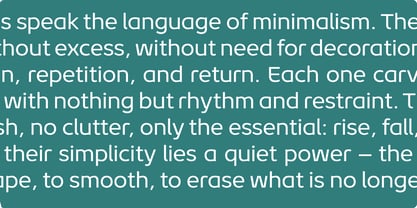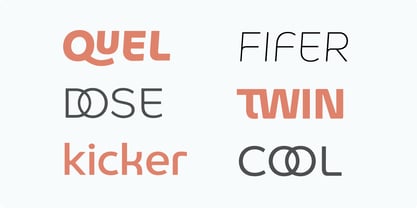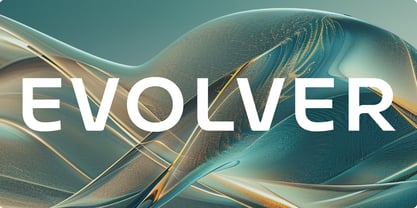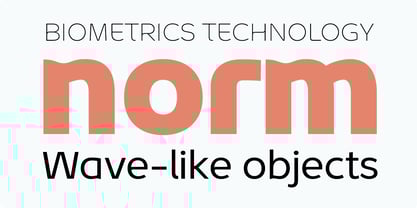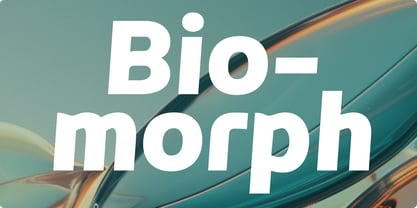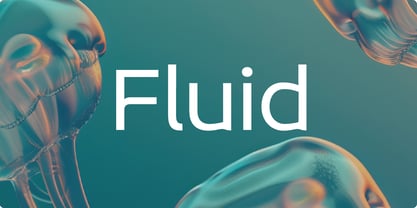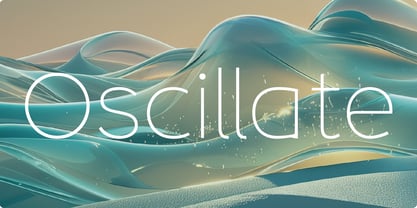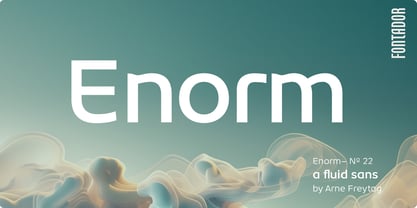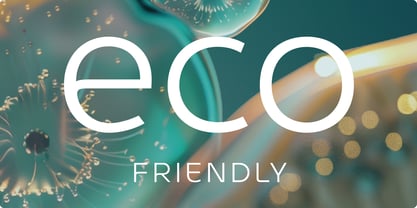
Enorm
by Fontador
The Enorm Font Family was designed by Arne Freytag and published by Fontador. Enorm contains 16 styles.
Enorm is a modern, futuristically conceived neo-grotesque typeface that combines clarity and timelessness with current and emerging technologies. It is designed to serve as a typographic foundation for distinctive brand communication.
Its large x-height enhances readability at smaller sizes and gives the typeface an open, generous appearance on both print and screen. Extensive OpenType features—such as ligatures, contextual alternates, and stylistic sets—are integrated across all styles. With broad Latin language support, Enorm offers high versatility for diverse typographic applications.
Designed as a contemporary geometric typeface, it is particularly well-suited for text, logotypes, branding, editorial design, and corporate identities. Enorm is a related variant of Object.